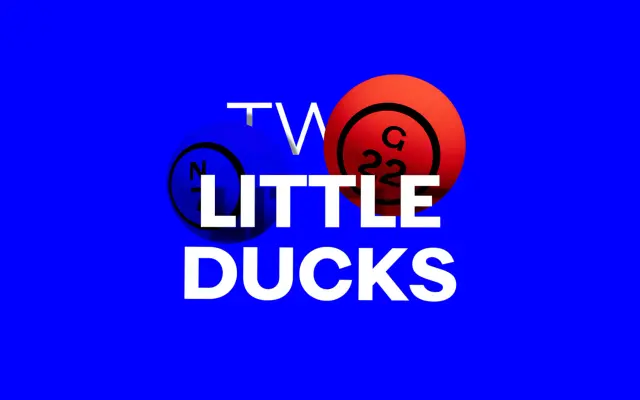
F37 Britain Sans
The workhorse sans within the F37 Britain collection, running from Light to Black with matching italics.
A neutral sans that anchors the F37 Britain collection. Ten styles span five weights from Light to Black with matching italics, giving it the range to handle body text, headlines and UI within a single system. Reads as a contemporary British grotesque, deliberately less expressive than the other Britain cuts so the more characterful styles can do the heavy lifting.
F37 classify F37 Britain Sans as a neutral sans within the F37 Britain collection. It carries the standard, workhorse role in the system: a clean, mid-weight grotesque with a generous weight range.